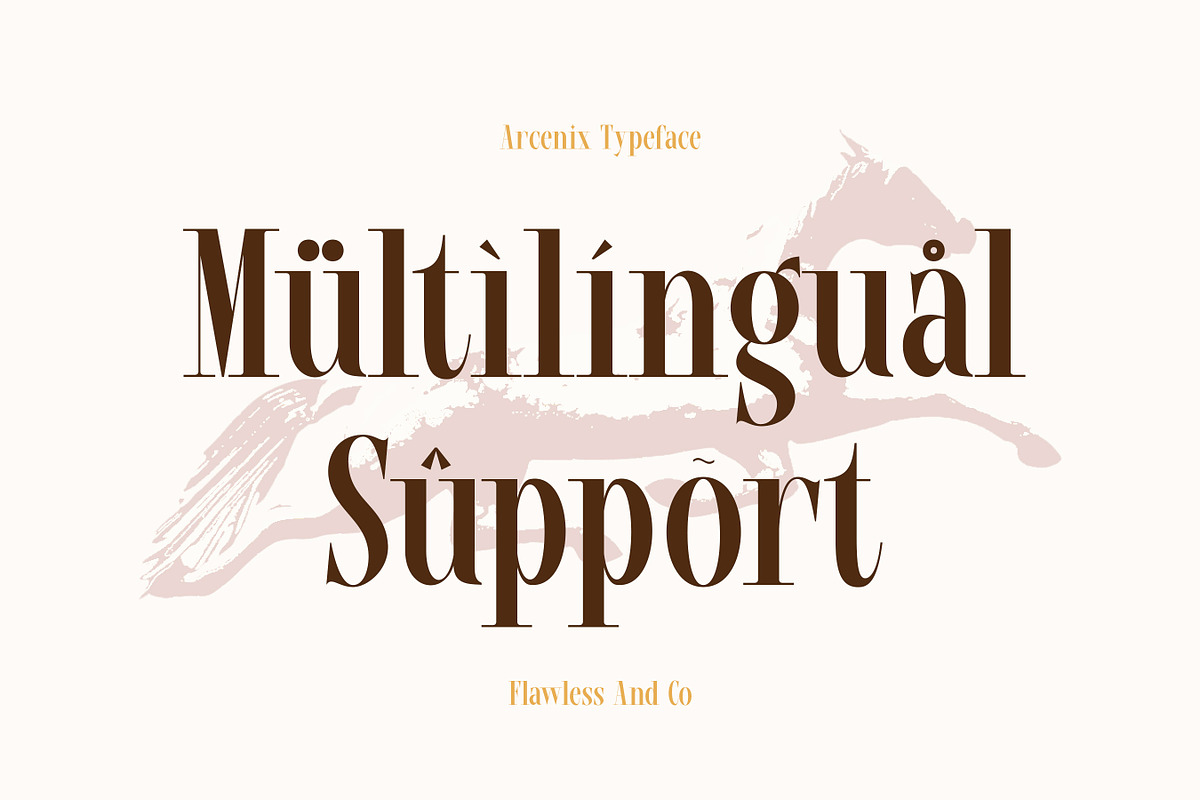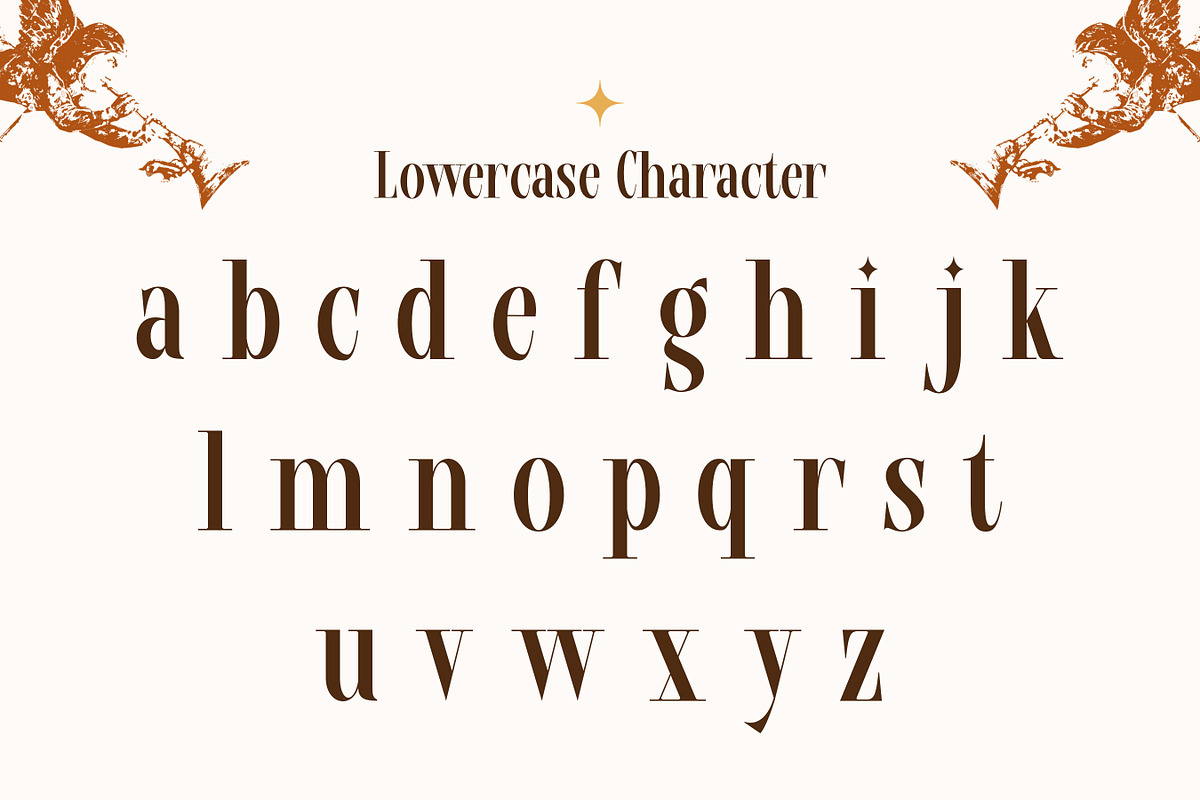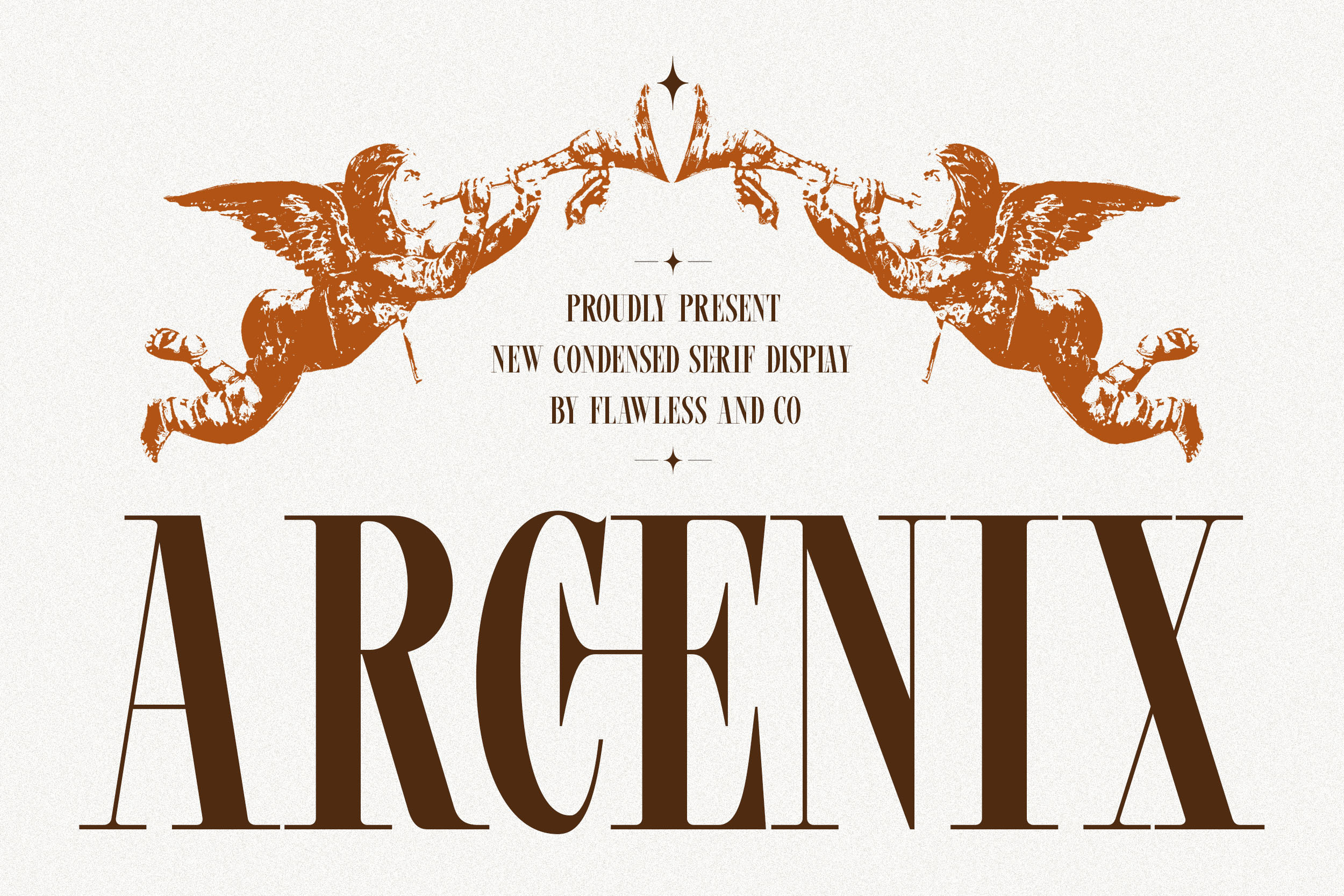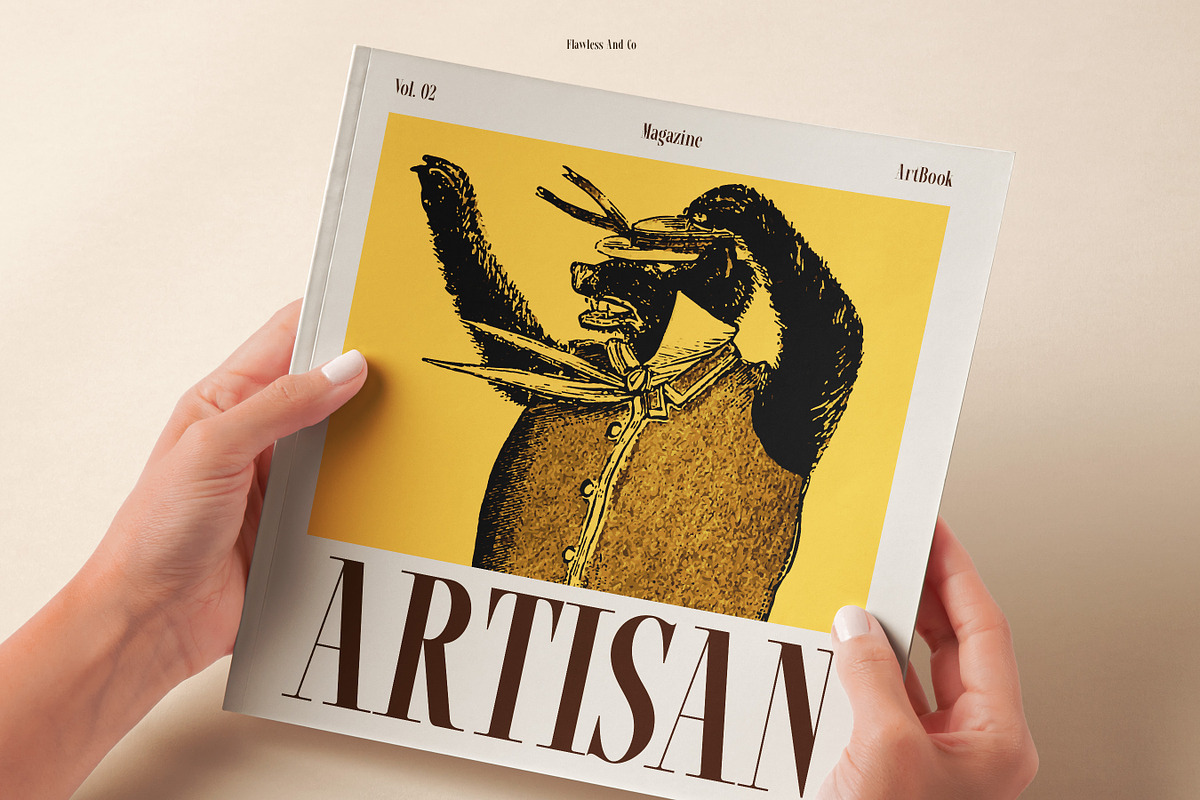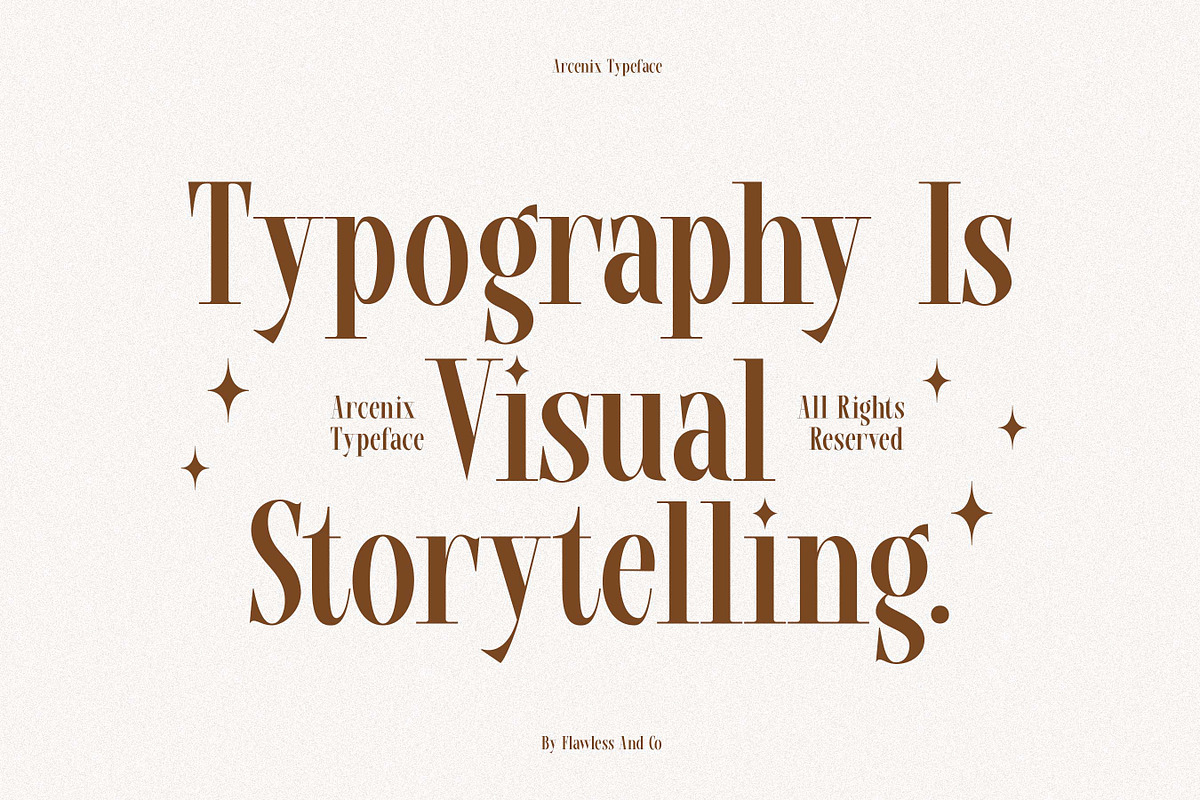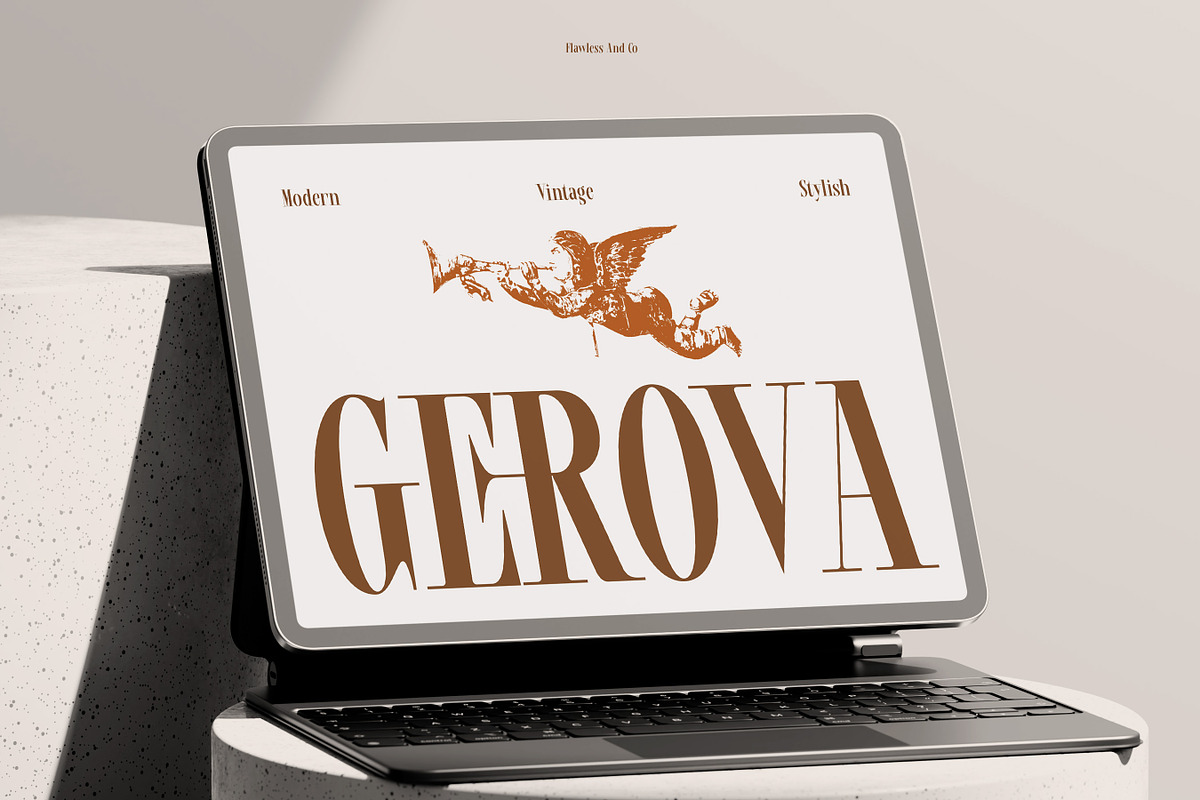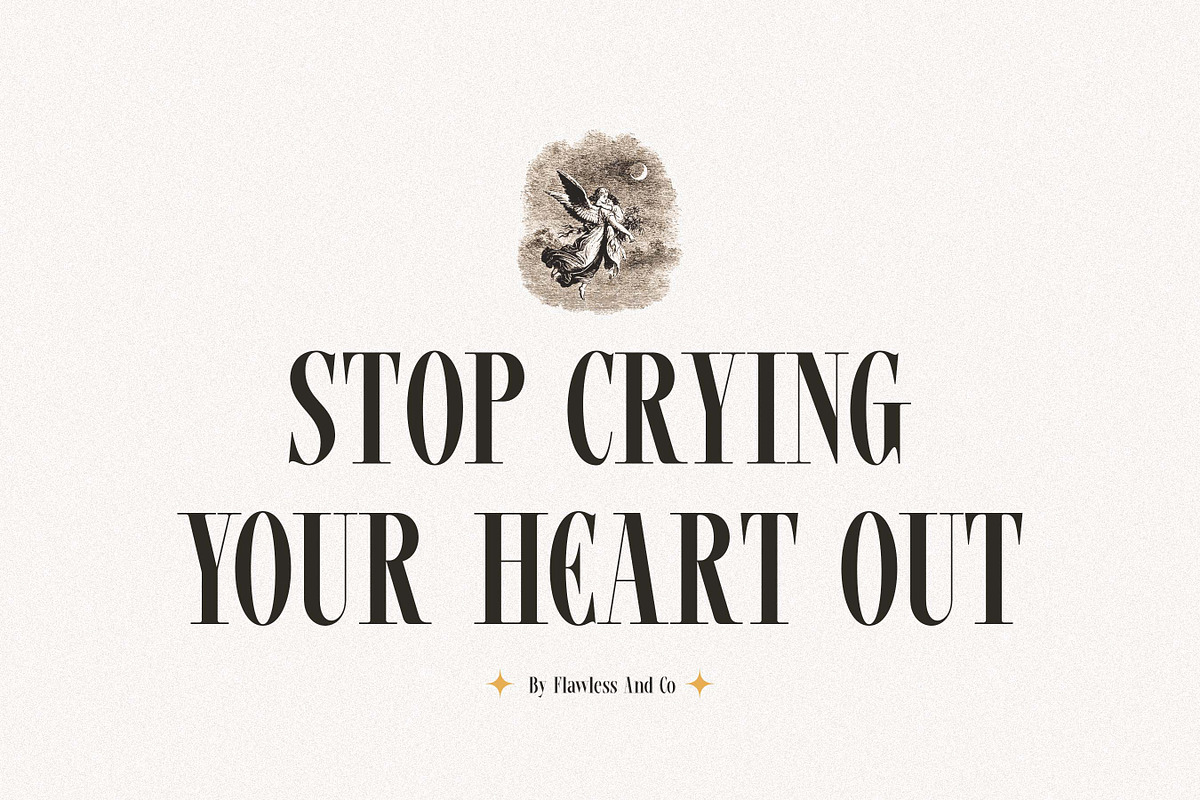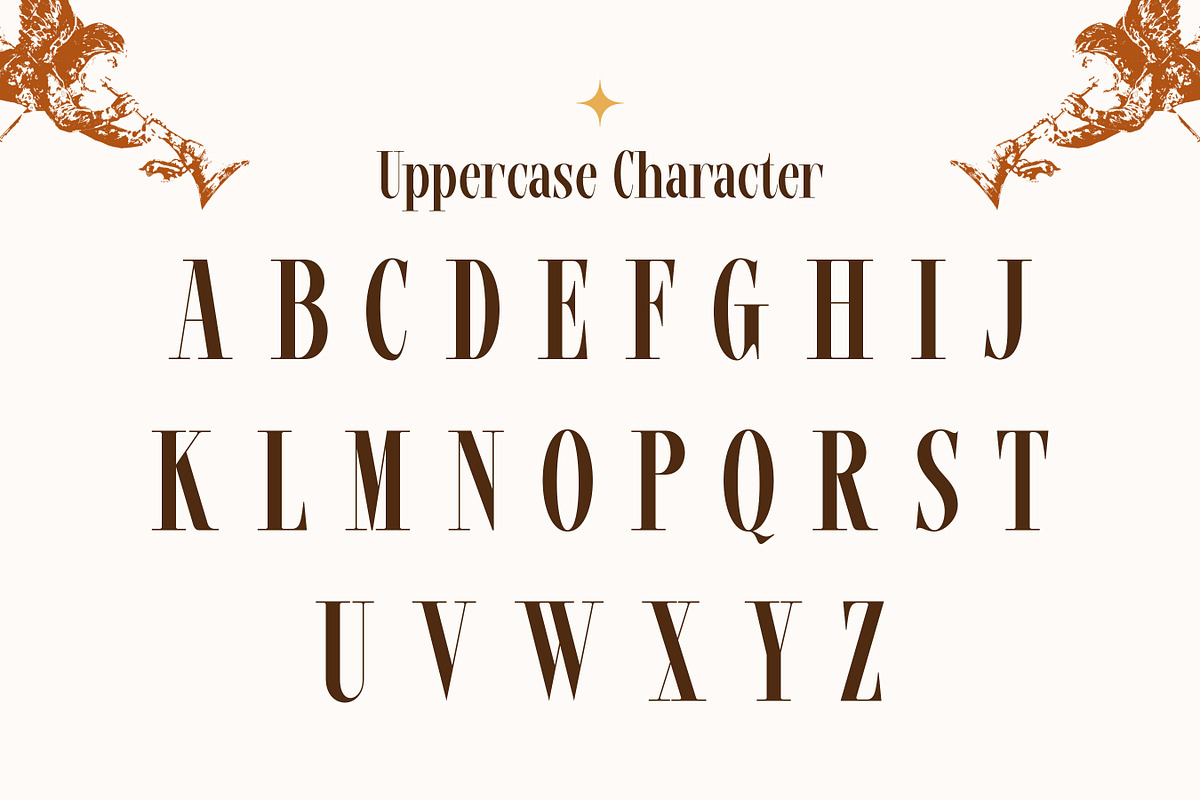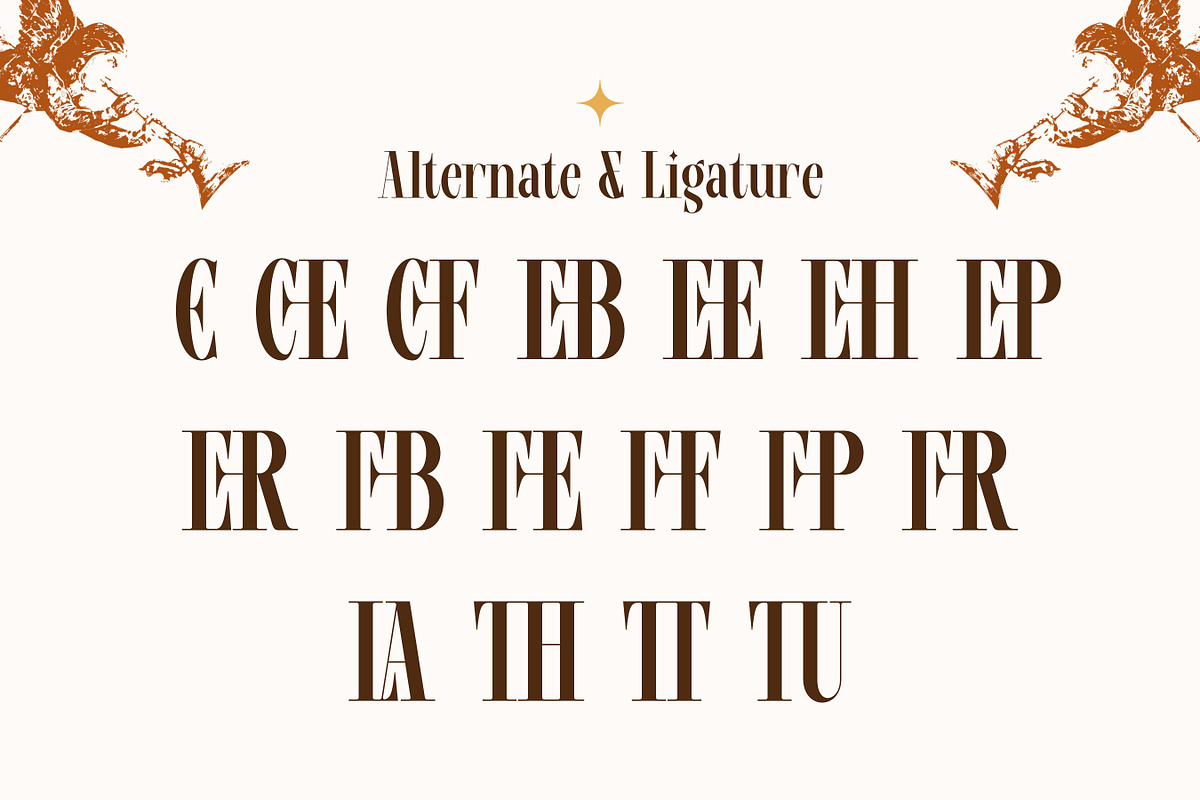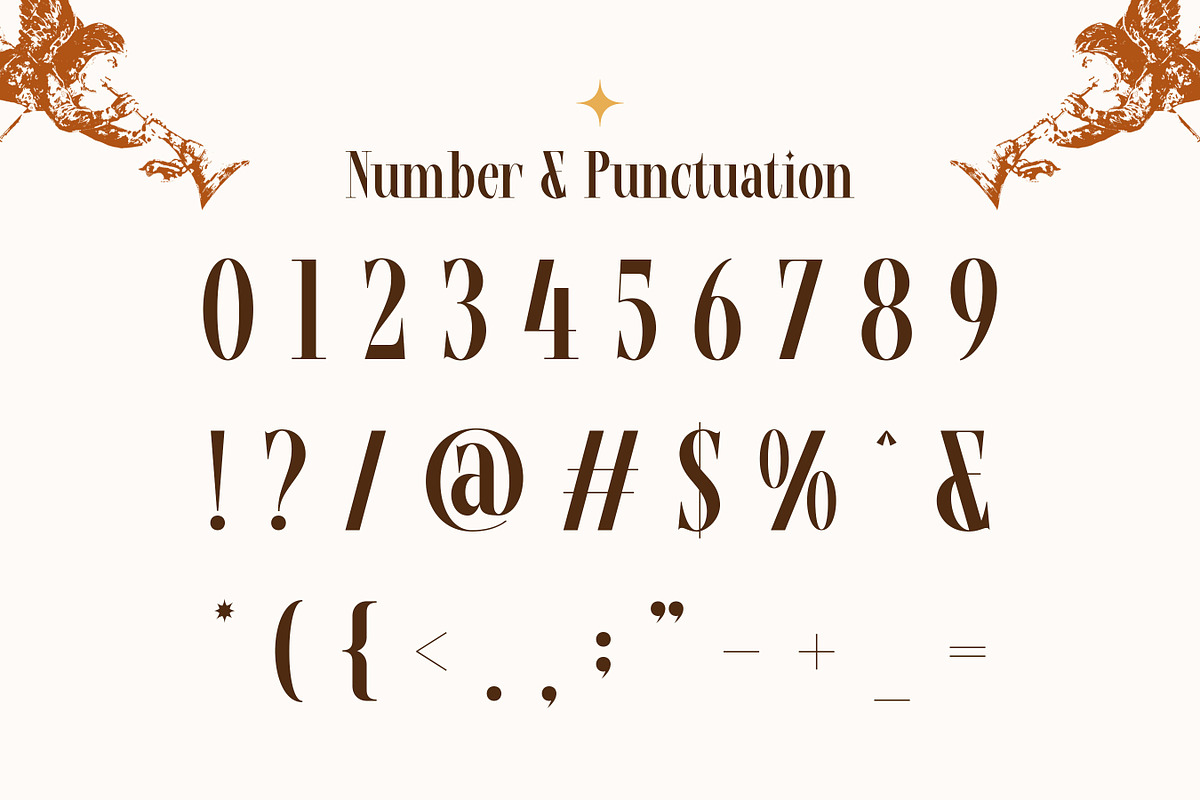
Arcenix - Serif Display Font
Arcenix - Condensed Serif Display Font
Arcenix is a modern condensed serif display typeface crafted to deliver elegance, precision, and strong visual impact. With its tall, narrow letterforms and refined serif details, Arcenix creates a sophisticated vertical flow that feels both classic and contemporary. Its condensed structure allows you to maximize space while maintaining clarity, making it ideal for classic headlines and stylish layouts. Arcenix brings a perfect balance of luxury and efficiency to any design.
Alternates & Ligatures
Who Should Use Arcenix?
Arcenix is ideal for designers, creatives, and brands who want a high-end serif with a modern condensed style. It’s especially suited for projects that require elegance, readability, and a strong typographic presence.
Suitable For:
Editorial and magazine headlines
Luxury and fashion branding
Poster and advertising design
Logo and identity creation
Packaging and product labels
Boutique and lifestyle branding
Social media visuals
Condensed display typography